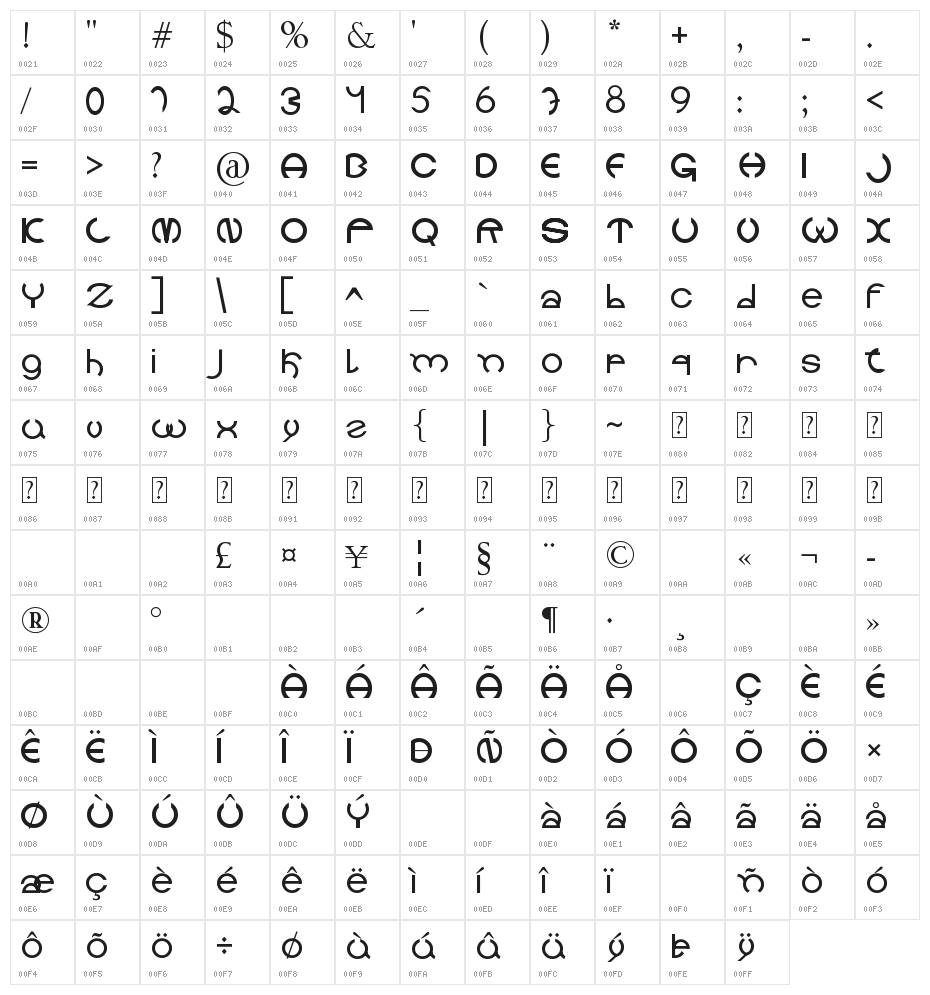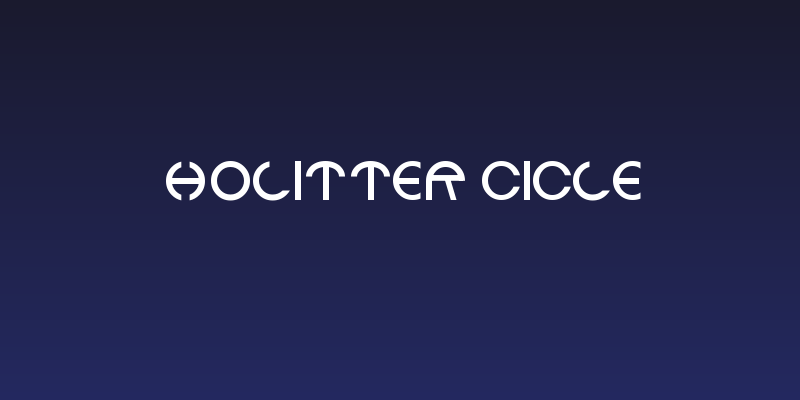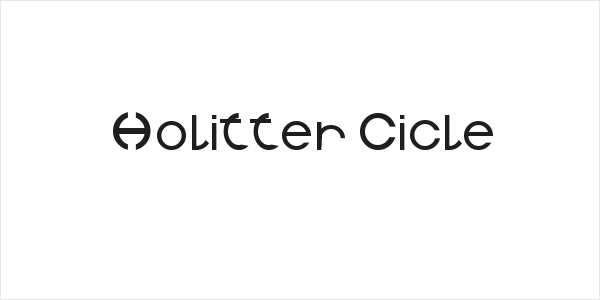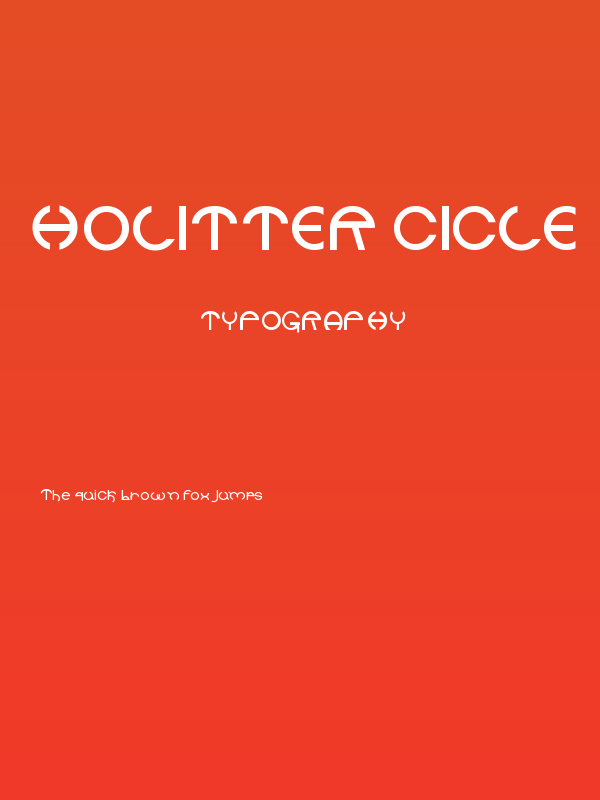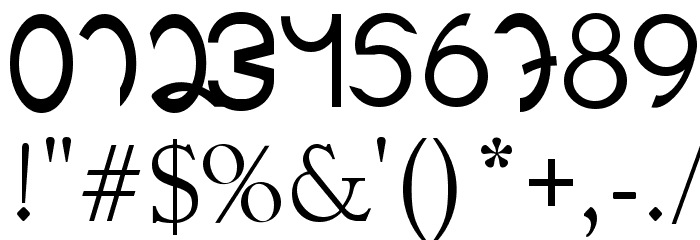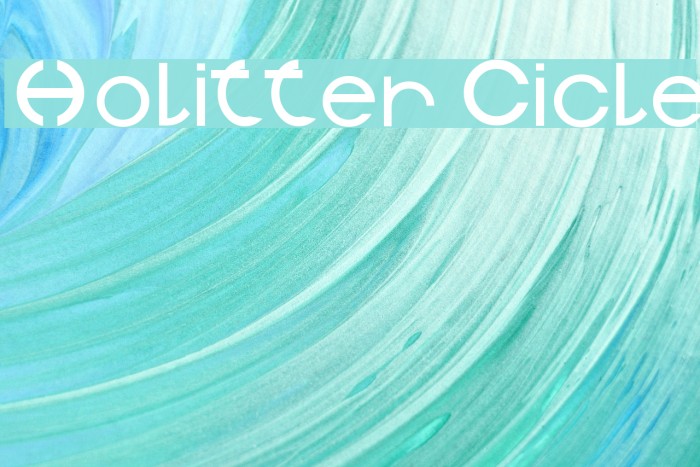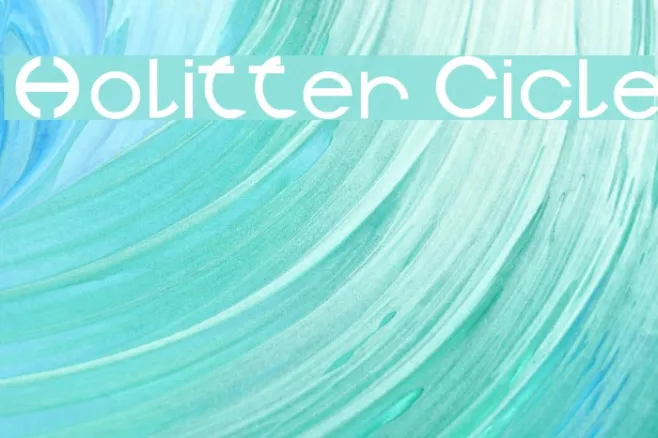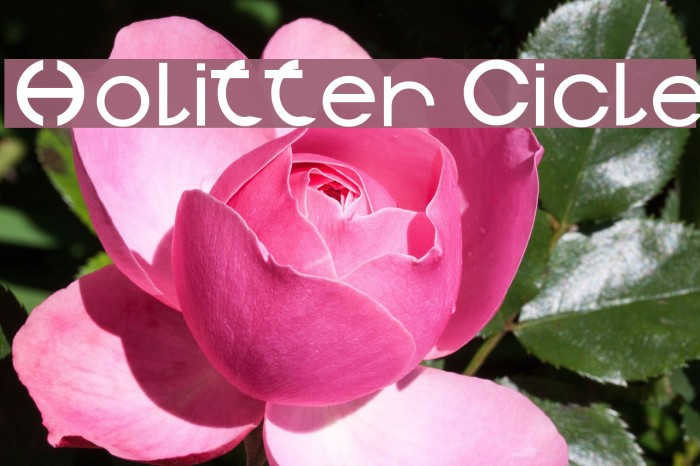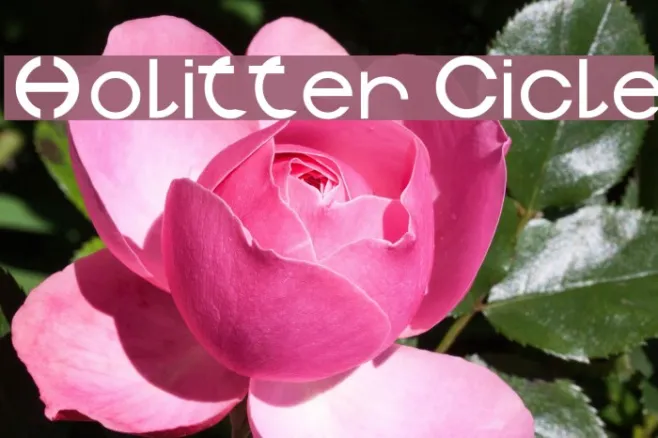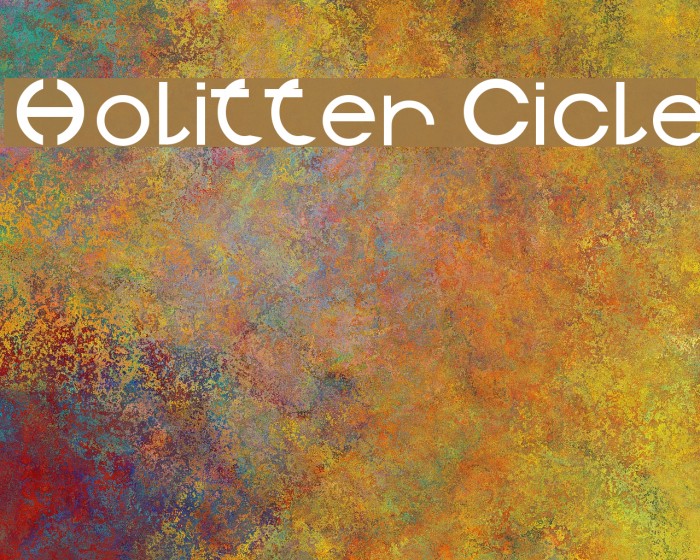
Holitter Cicle Font
Holitter Cicle Description
This font features a unique and modern design with a futuristic flair. The characters are bold and rounded, with a consistent thickness throughout. The uppercase letters have a distinctive geometric style, incorporating circular and semi-circular shapes that create a sense of movement and dynamism. The lowercase letters maintain this theme, offering a cohesive look across the alphabet. Numbers and special characters are designed to match the overall aesthetic, making the font versatile for various applications. The style is eye-catching and ideal for projects that require a contemporary and innovative appearance.